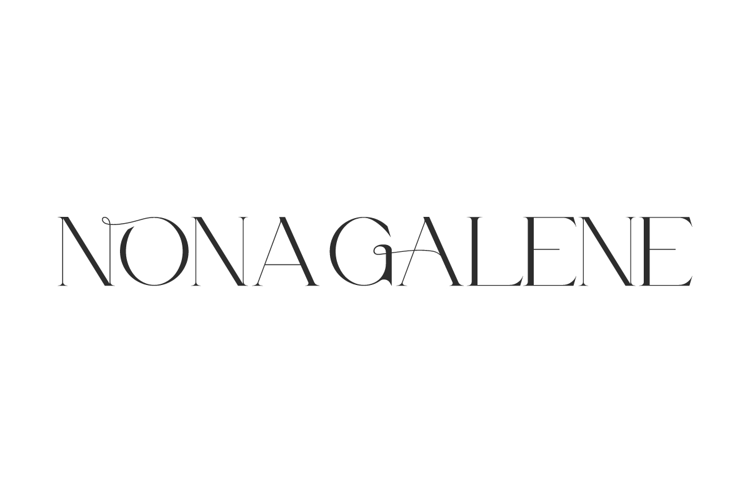
Nona Galene
Nona Galene Font is a stylish and modern graceful serif font. With a stylish modern style, this font will be a favorite in any design. We keep this font looking elegant, classy, ​​and stylish. It would be very suitable to be used too in blogs, branding, business card, headers, headline, labels, logos, magazine catalog, mockup, product packaging, quotes, screen print, stickers, title, website and many more.
Nona Galene Font includes full set of Uppercase and Lowercase Basic Characters, Numbers, Punctuation, Symbols and Ligature. This font also includes several ligatures to help get your creativity flowing! So, it is a great choice for advertising, beauty clinic, boutique, cosmetic, fashion, florist, skincare, spa salon, etc.